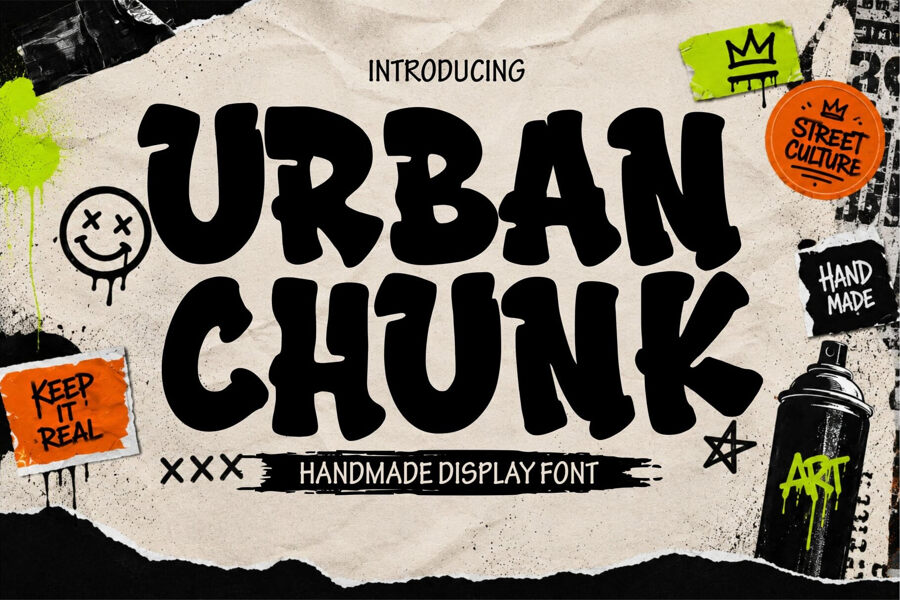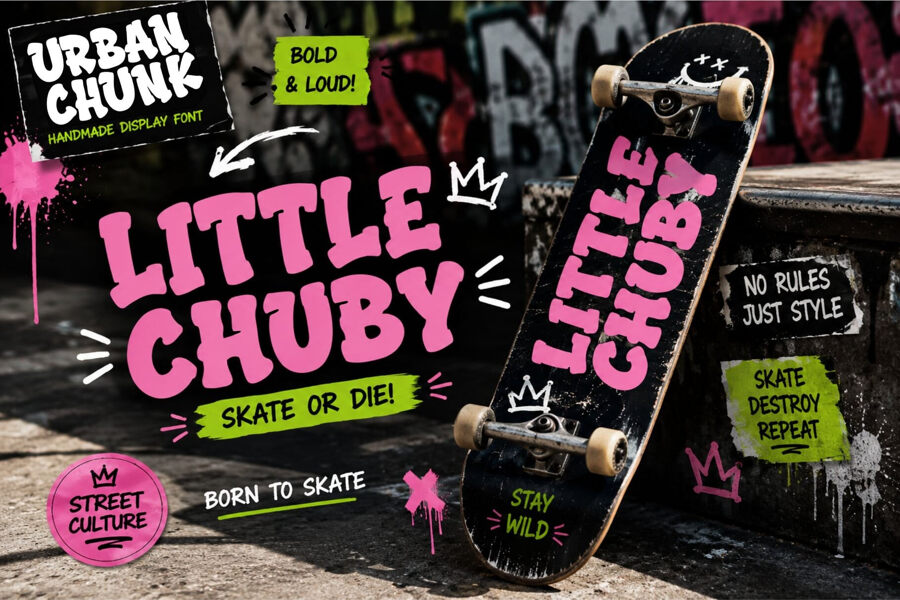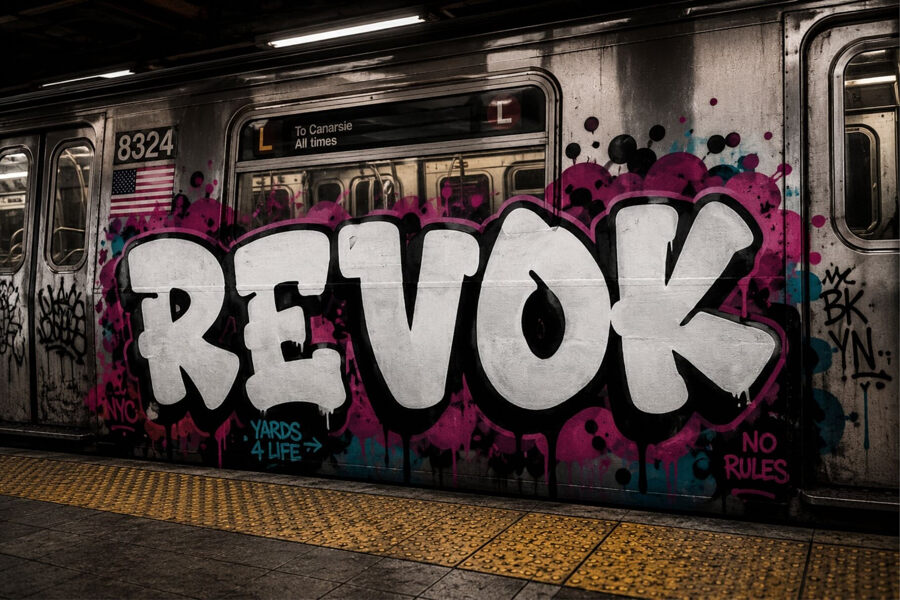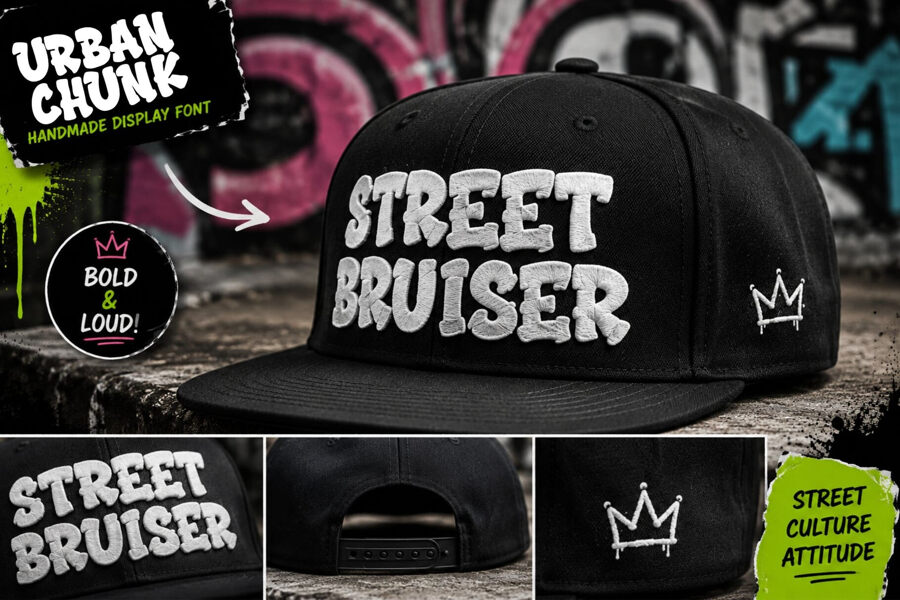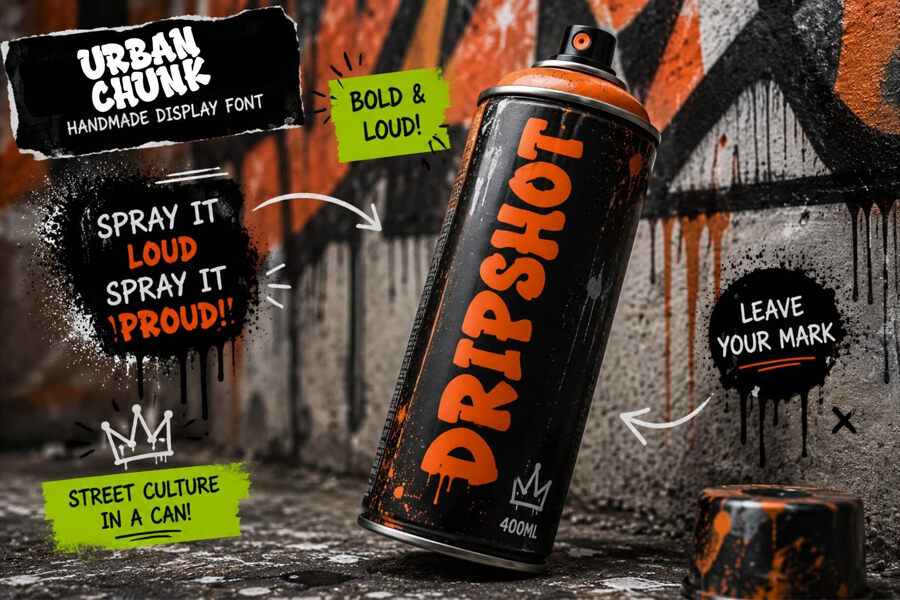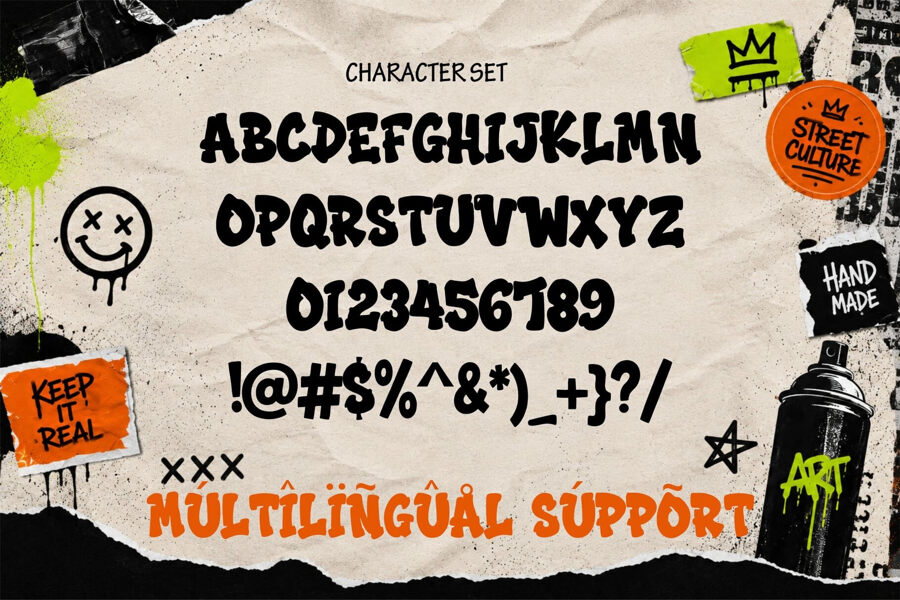
Urban Chunk is a fun, chunky, and expressive graffiti font designed to bring a fresh urban personality to your typography. Inspired by playful street lettering and bold graffiti aesthetics, this cute graffiti font combines thick rounded characters with a friendly attitude that instantly grabs attention.
Whether you’re designing apparel, branding, posters, social media graphics, or merchandise, Urban Chunk graffiti font helps your creative projects stand out with confidence and charm.